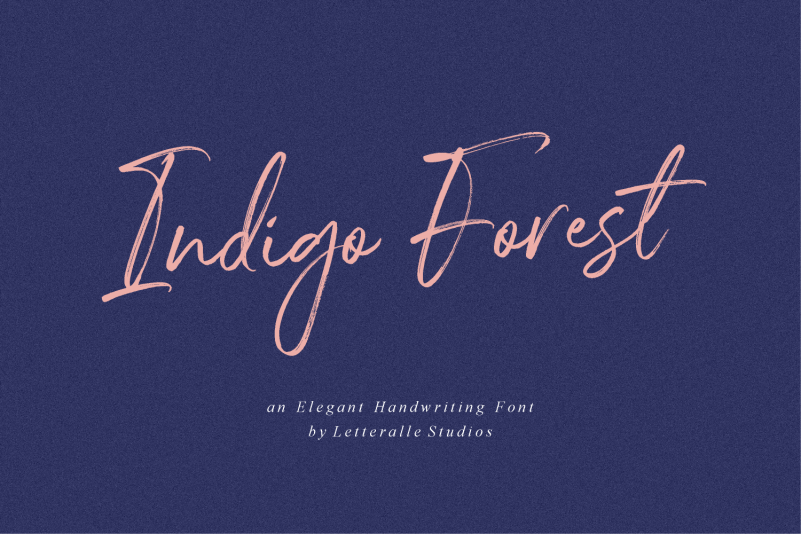
Indigo Forest Script Font
Introducing! Indigo Forest Font! a casual and charming brush font. Indigo Forest is very suitable to fill your design needs such as, branding, social media, merch, ads, book title, packaging, etc.